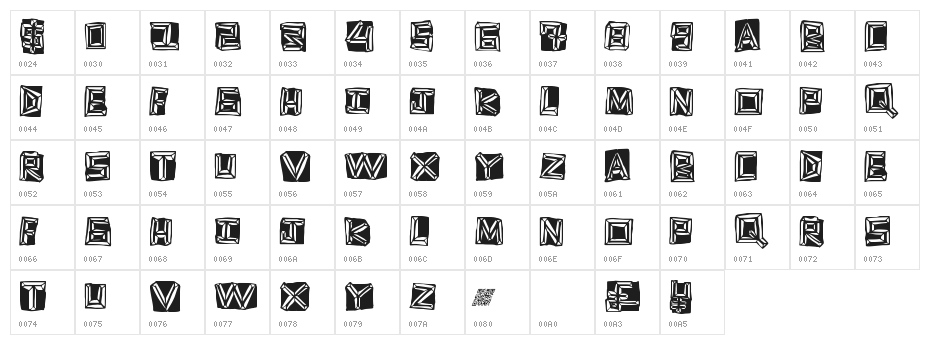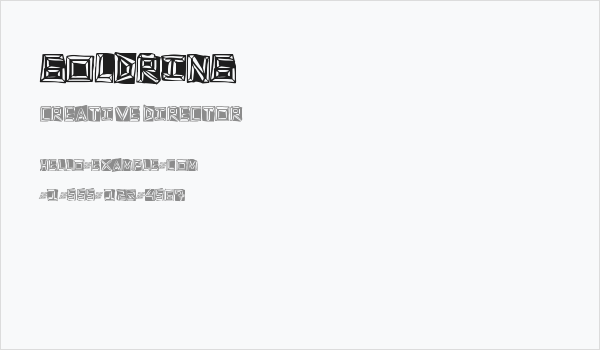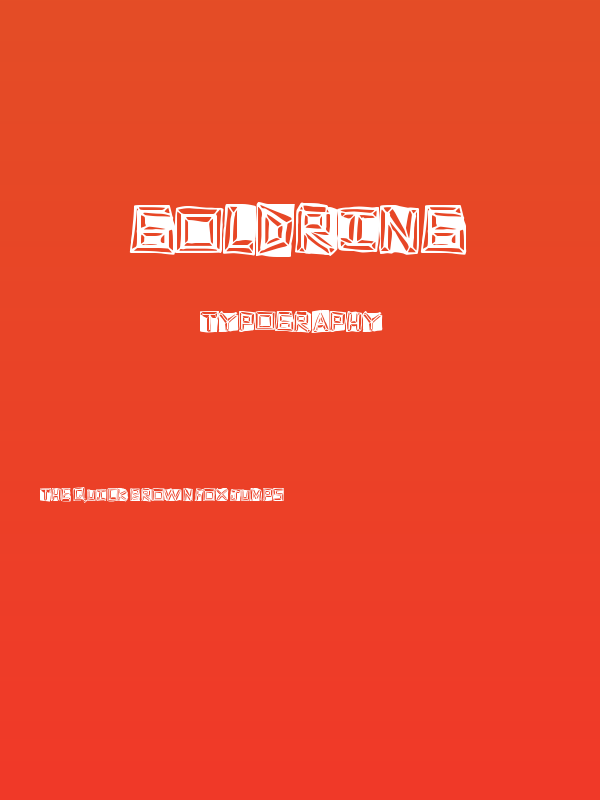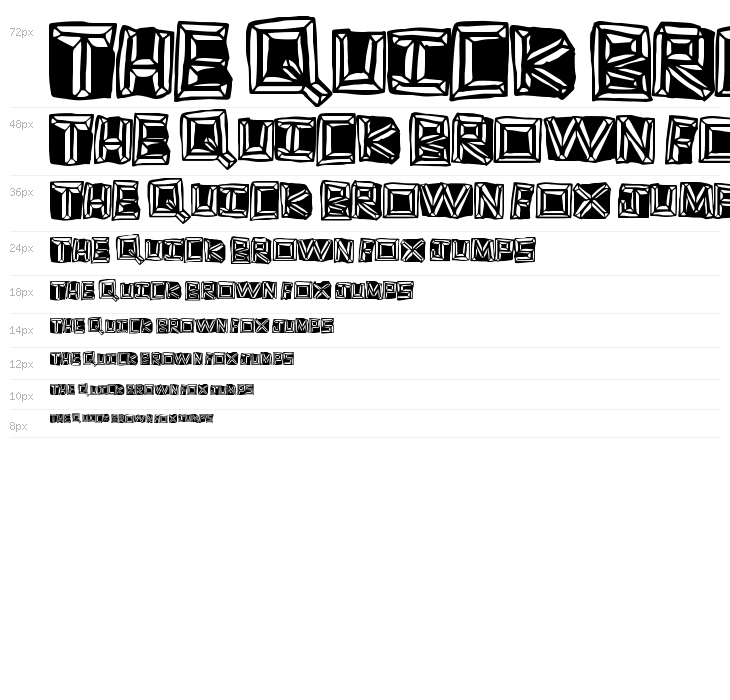
GoldRing Font
GoldRing Description
This font features a bold, geometric design with a three-dimensional effect that gives each character a sculpted appearance. The letters are enclosed in a block-like structure, creating a sense of depth and solidity. The angular lines and sharp edges contribute to a modern and edgy aesthetic, making it stand out in any design. The uppercase and lowercase letters maintain a consistent style, while the numbers and special characters are equally bold and distinctive. This font is ideal for projects that require a strong visual impact.
| Proposed Projects | Ideal for posters, logos, video game graphics, and any design requiring a strong, impactful presence. |